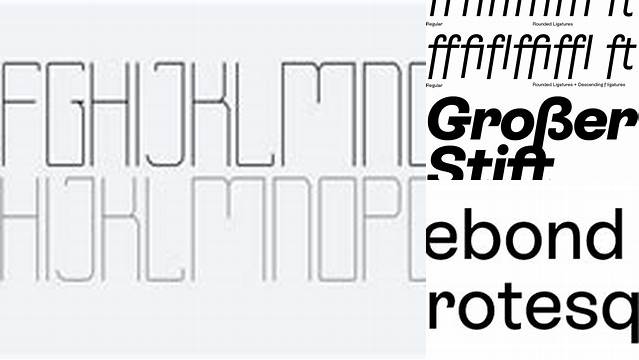
Rebond Grotesque Font: Free Download & Usage Guide
Hey guys! Are you on the hunt for a unique, modern, and super versatile font? Well, look no further! Today, we're diving deep into the world of Rebond Grotesque, a font that's been making waves in the design community. In this comprehensive guide, we'll explore what makes Rebond Grotesque so special, where you can find it for free download, and how to use it to elevate your projects. Let’s get started!
What is Rebond Grotesque?
Rebond Grotesque is more than just a font; it's a design statement. This typeface family is celebrated for its clean lines, geometric structure, and contemporary feel. Its versatility makes it an excellent choice for a wide range of design applications, from branding and advertising to web design and editorial layouts. But what exactly makes Rebond Grotesque stand out from the crowd? First and foremost, its legibility is top-notch. The carefully crafted letterforms ensure that your message is clear and easily readable, whether it's in a headline, body text, or even a logo. The font's neutral yet stylish appearance makes it adaptable to various design aesthetics, making it a go-to choice for designers seeking a modern and functional typeface. The grotesque style itself is a nod to early sans-serif typefaces, but Rebond Grotesque brings a contemporary twist, blending classic principles with modern sensibilities. This unique blend is what gives Rebond Grotesque its distinctive character. The font family often includes a variety of weights and styles, from light and regular to bold and italic, providing designers with a complete toolkit for creating visually consistent and engaging designs. Whether you’re working on a minimalist website, a bold advertising campaign, or a sophisticated editorial piece, Rebond Grotesque can adapt to your needs. Its clean, uncluttered design ensures that it works well in both print and digital formats, making it a truly versatile asset. Furthermore, the font's geometric construction lends a sense of order and precision to any design, while its subtle details add a touch of personality and warmth. Rebond Grotesque isn't just about looking good; it's about communicating effectively. Its design focuses on readability and usability, ensuring that your message is delivered clearly and with impact. So, if you’re looking for a font that combines modern aesthetics with practical functionality, Rebond Grotesque is definitely worth exploring. Its widespread appeal and versatile nature make it a valuable addition to any designer's toolkit.
Why Choose Rebond Grotesque for Your Projects?
When it comes to selecting the right font for your projects, the options can seem endless. So, why should you specifically choose Rebond Grotesque? Well, there are several compelling reasons why this font has become a favorite among designers and creatives. Versatility is a key factor. Rebond Grotesque's clean, geometric design makes it incredibly adaptable to a wide range of applications. Whether you're crafting a sleek logo, designing a user-friendly website, or laying out a professional brochure, this font can seamlessly fit into your vision. Its neutrality allows it to complement a variety of design styles, from minimalist and modern to bold and expressive. The font's legibility is another major advantage. Clear and readable typography is crucial for effective communication, and Rebond Grotesque excels in this area. Its well-defined letterforms ensure that text remains easily readable, even at smaller sizes or in dense blocks of content. This is particularly important for web design and user interfaces, where readability can significantly impact user experience. In addition to its practicality, Rebond Grotesque also offers a distinctive aesthetic. Its geometric structure gives it a contemporary and sophisticated feel, while its subtle variations and nuances add character and warmth. This balance of functionality and style makes it an excellent choice for projects that require a modern yet approachable look. The font's availability in multiple weights and styles further enhances its versatility. With options ranging from light to bold, and regular to italic, you have the flexibility to create visual hierarchy and add emphasis where needed. This allows for a more dynamic and engaging design, ensuring that your message stands out. Rebond Grotesque is also a great choice for branding. Its clean and professional appearance can help convey a sense of reliability and trustworthiness, while its modern edge keeps your brand looking fresh and relevant. Whether you're designing a logo, business cards, or marketing materials, this font can help create a cohesive and impactful brand identity. Finally, the fact that Rebond Grotesque is often available for free download (in certain versions or for specific uses) makes it an accessible option for designers on a budget. This means you can achieve a high-quality, professional look without breaking the bank. In summary, Rebond Grotesque offers a compelling combination of versatility, legibility, style, and accessibility, making it a top choice for a wide range of design projects. Its ability to adapt to different contexts and convey a sense of modern sophistication makes it a valuable asset for any designer.
How to Use Rebond Grotesque in Your Designs
So, you've got your hands on Rebond Grotesque – awesome! Now, let's talk about how to actually use this fantastic font in your designs. Knowing the strengths of a typeface and how to leverage them can make a huge difference in the final result. Rebond Grotesque is a versatile font, but like any design tool, it shines brightest when used thoughtfully. First off, consider the overall tone and message of your project. Rebond Grotesque's clean and modern aesthetic makes it a great fit for projects that aim to convey a sense of professionalism, clarity, and innovation. It works particularly well for brands in tech, finance, and creative industries. However, its adaptability means it can also be used effectively in other contexts, depending on the specific design choices you make. One of the key things to think about is hierarchy. Rebond Grotesque's range of weights and styles makes it easy to create visual hierarchy in your designs. Use the bolder weights for headlines and titles to grab attention, and the lighter weights for body text to ensure readability. Mixing different weights can add visual interest and help guide the reader through your content. For example, you might use Rebond Grotesque Bold for your main headline, Rebond Grotesque Regular for subheadings, and Rebond Grotesque Light for body text. This creates a clear and organized layout that's easy on the eyes. Whitespace is another crucial element to consider. Rebond Grotesque's clean lines and open letterforms need room to breathe. Avoid overcrowding your design with too much text or too many elements. Generous whitespace around your text will enhance readability and give your design a more polished and professional look. Experiment with letter spacing and line height as well. Adjusting these settings can significantly impact the readability and visual appeal of your text. Slightly increasing the letter spacing can give your text a more airy and modern feel, while adjusting the line height can improve the flow of reading. In terms of color, Rebond Grotesque pairs well with a variety of palettes. Its neutrality means it can work effectively with both vibrant and muted colors. When choosing colors, consider the overall mood and message of your design. For a clean and professional look, stick to a limited palette of complementary colors. For a more playful and creative design, you can experiment with bolder color combinations. Think about contrast, too. Ensure there's sufficient contrast between your text and background colors to maintain readability. Dark text on a light background (or vice versa) is generally the most effective approach. Rebond Grotesque can also be used effectively in logos and branding. Its clean and modern appearance can help convey a sense of reliability and innovation. When using it in a logo, consider the font's weight and how it interacts with other design elements. A bold weight can make your logo stand out, while a lighter weight can give it a more subtle and sophisticated feel. Finally, don't be afraid to experiment! The best way to learn how to use Rebond Grotesque effectively is to play around with it and see what works. Try different combinations of weights, styles, and colors. Use it in different contexts and see how it performs. The more you experiment, the better you'll understand the font's capabilities and how to leverage them in your designs. So go ahead, guys, unleash your creativity and make Rebond Grotesque a star in your design arsenal!
Examples of Excellent Designs Using Rebond Grotesque
Alright, let's dive into some real-world inspiration! Seeing how Rebond Grotesque is used in actual designs can give you a better sense of its capabilities and spark some ideas for your own projects. There are tons of fantastic examples out there, showcasing the font's versatility and modern appeal. One common application is in branding. Many companies have chosen Rebond Grotesque for their logos and visual identities due to its clean, professional, and contemporary look. Imagine a tech startup using a bold weight of Rebond Grotesque for their logo – it instantly communicates innovation and reliability. Similarly, a design agency might use a lighter weight to convey sophistication and creativity. In these branding examples, the font is often paired with a minimalist color palette and clean graphic elements, allowing the typography to take center stage. Another area where Rebond Grotesque shines is in web design. Its excellent legibility makes it a fantastic choice for both headlines and body text on websites. Many designers use it for navigation menus, calls to action, and other key elements to ensure clarity and user-friendliness. You might see a website with a large, impactful Rebond Grotesque headline welcoming visitors, followed by body text in a lighter weight that's easy to read. The font's clean lines also make it work well with modern website layouts, which often feature plenty of whitespace and a focus on simplicity. Editorial design is another domain where Rebond Grotesque excels. Magazines, brochures, and reports often use this font to create a polished and professional look. Its versatility allows it to adapt to various editorial styles, from minimalist and modern to more classic and elegant. In these applications, you might see Rebond Grotesque used for headlines, subheadings, and body text, creating a cohesive and visually appealing layout. The font's different weights and styles allow designers to create a clear hierarchy and guide the reader through the content effectively. Beyond these specific applications, Rebond Grotesque can also be found in a wide range of other designs, including posters, advertisements, and packaging. Its adaptability makes it a valuable asset for any designer looking to create a modern and impactful visual identity. For instance, a poster for a music event might use a bold, eye-catching version of Rebond Grotesque to grab attention, while a packaging design for a luxury product might use a lighter weight to convey sophistication and elegance. To find more examples of excellent designs using Rebond Grotesque, I recommend browsing design platforms like Behance, Dribbble, and Pinterest. These sites are filled with inspiring projects from talented designers around the world. When you're looking at these examples, pay attention to how the font is used in different contexts. Consider the color palettes, layouts, and other design elements that complement the typography. This will help you develop a better understanding of Rebond Grotesque's capabilities and how to use it effectively in your own projects. So, guys, get inspired! With a little bit of creativity and experimentation, you can use Rebond Grotesque to create stunning designs that stand out from the crowd. Remember, the key is to understand the font's strengths and leverage them to achieve your design goals.
Conclusion: Elevate Your Designs with Rebond Grotesque
In conclusion, guys, Rebond Grotesque is a fantastic font that offers a winning combination of versatility, legibility, and modern style. Whether you're working on branding, web design, editorial projects, or any other creative endeavor, this font can help you elevate your designs to the next level. We've explored what makes Rebond Grotesque so special, where you can find it for free download (remember to check those licenses!), and how to use it effectively in your projects. Its clean lines, geometric structure, and adaptable nature make it a valuable asset for any designer looking to create a professional and contemporary look. Remember, the key to using Rebond Grotesque (or any font) effectively is to consider the overall message and tone of your project. Think about how the font's characteristics align with your design goals and experiment with different weights, styles, and sizes to achieve the desired effect. Pay attention to details like letter spacing, line height, and color contrast to ensure your text is not only visually appealing but also highly readable. And don't forget to check out the fantastic examples of designs using Rebond Grotesque for inspiration! Seeing how others have used the font can spark your own creativity and help you discover new ways to incorporate it into your work. The world of typography is vast and exciting, and Rebond Grotesque is just one of the many incredible fonts out there waiting to be discovered. But its widespread popularity and versatility make it a great starting point for anyone looking to enhance their design toolkit. So, go ahead, guys, download Rebond Grotesque (from a reputable source, of course!) and start experimenting. Unleash your creativity and see how this font can transform your designs. Whether you're a seasoned designer or just starting out, Rebond Grotesque is a typeface that's sure to impress. And remember, design is all about communication. By choosing the right font, you can ensure that your message is not only heard but also seen and felt. So, here's to creating beautiful and impactful designs with Rebond Grotesque! Happy designing, everyone!